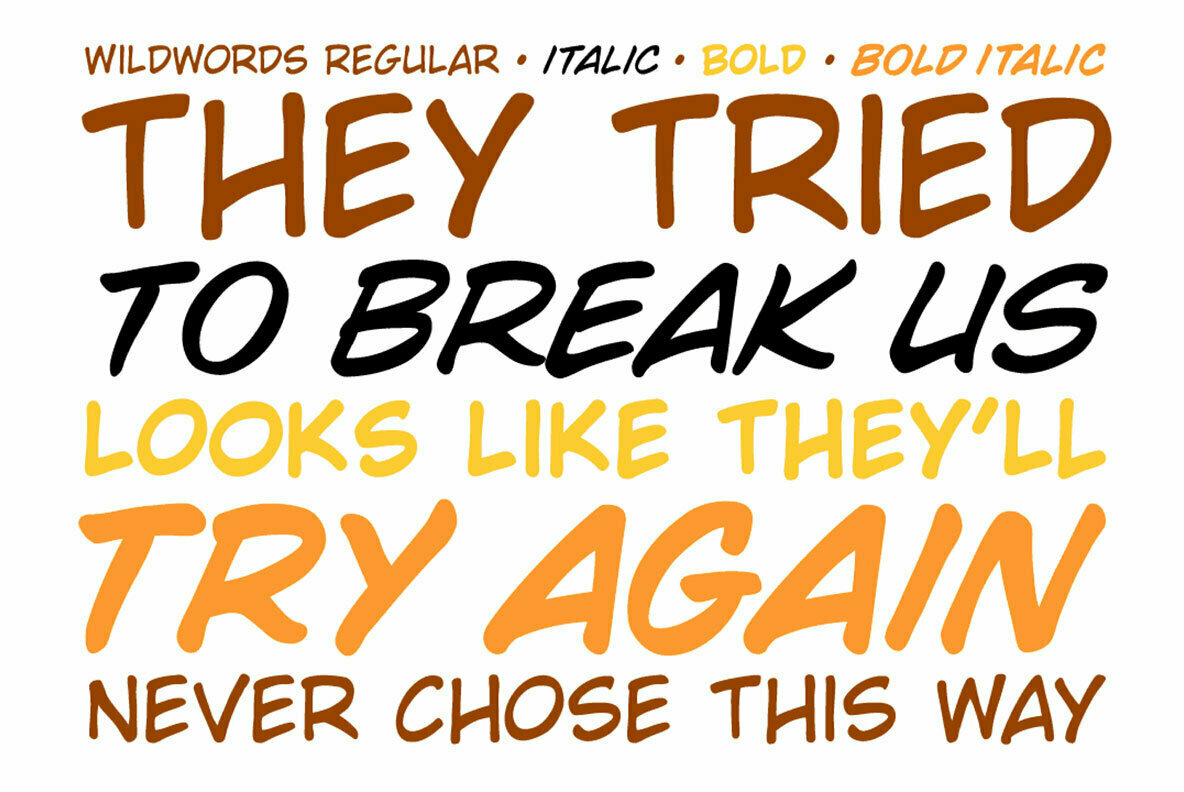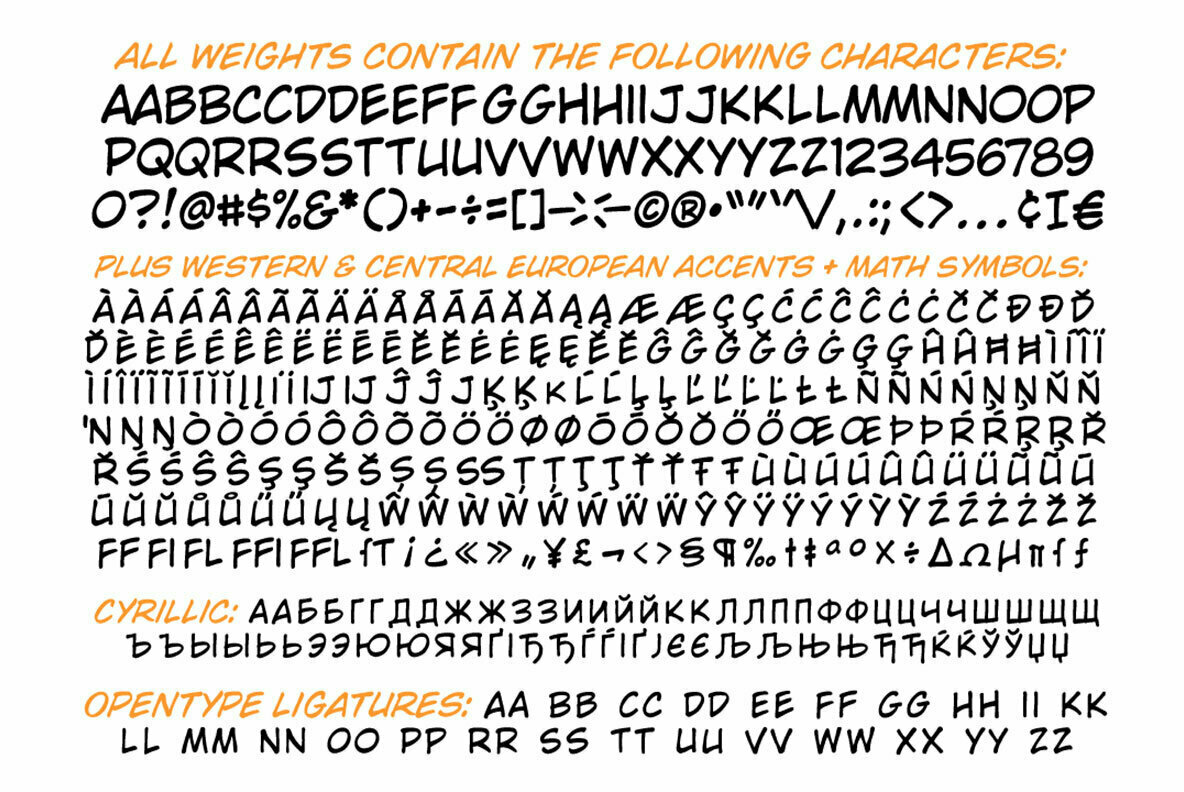
WildWords Font
Created for Jim Lee’s Wildstorm comic books, WildWords has proved to be one of our most popular fonts, and is considered the industry standard for Manga translation.
Four weights (Regular, Italic, Bold & Bold Italic) with alternate uppercase characters. Includes Western & Central European accents, Cyrillic characters, Manga characters
and Crossbar I Technology™